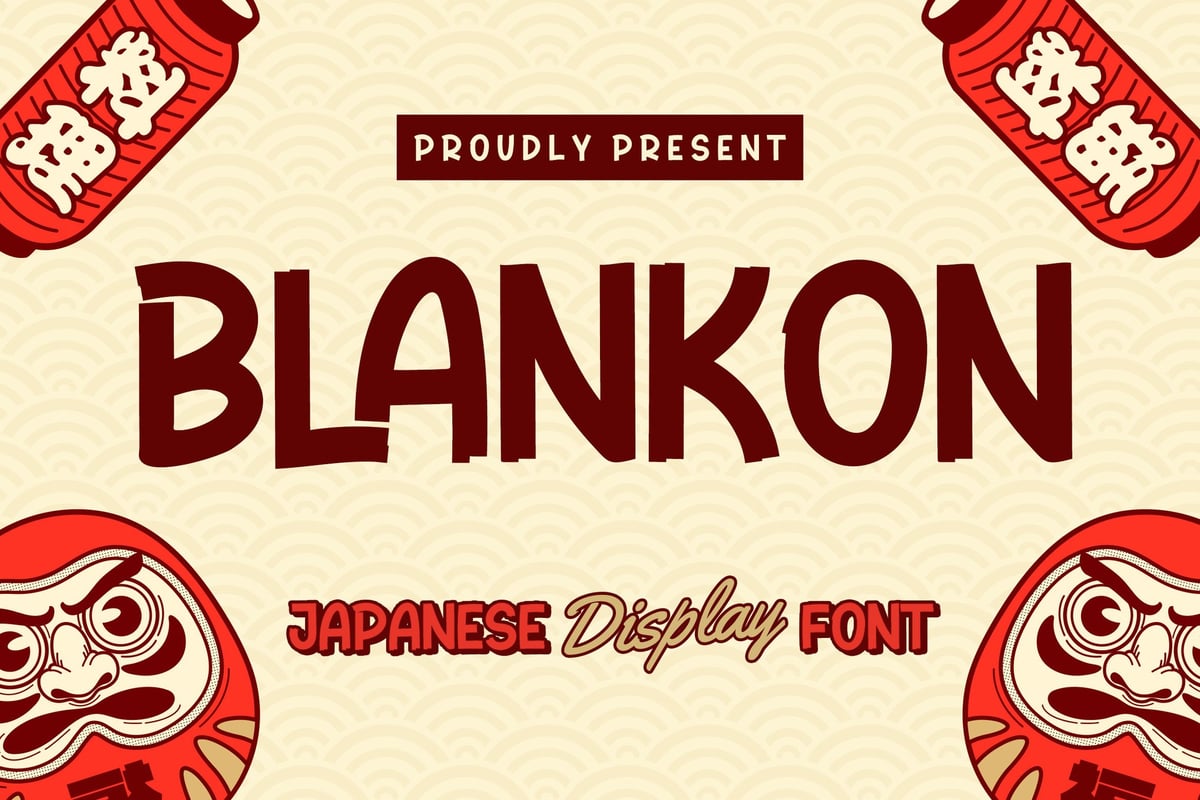
Blankon – Japanese-Inspired Display Font
Bold, angular, and full of East Asian character — Blankon is the display font your next standout project needs.
Blankon is a display typeface inspired by traditional Japanese aesthetics. Its bold strokes and angular letterforms give it a distinctive, hand-crafted personality that channels the spirit of East Asian visual culture in a playful, eye-catching way.
Perfect for a wide range of creative applications, including:
- Poster design
- Food packaging
- Signage
- Branding
- Cultural and Japanese-themed projects